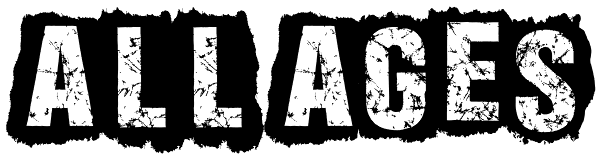
All Ages
All Ages is a true punk rock font. It has the same look and feel that you see wrapped around a light post telling you where the next show of your favorite band will be. All Ages will work with any of your headline, in your face, stylized design...
All Ages Italic
All Ages
All Ages Letters
All Ages Letters Italic
All Ages Ripped Paper
All Ages Ripped Paper Italic